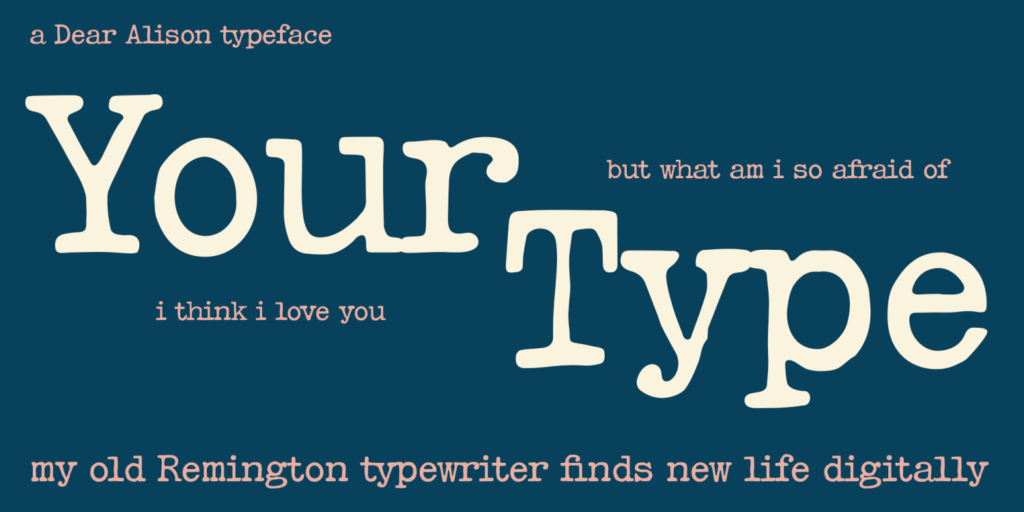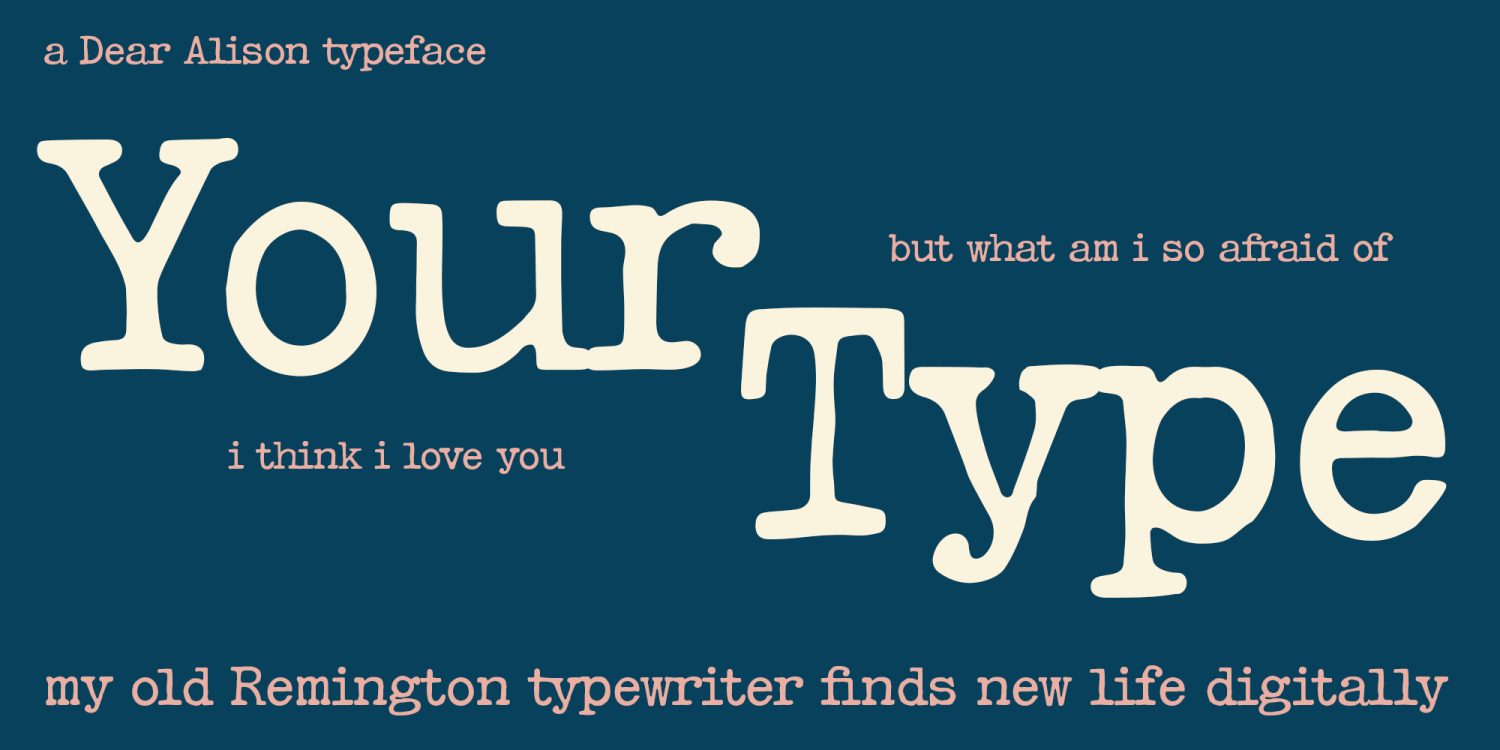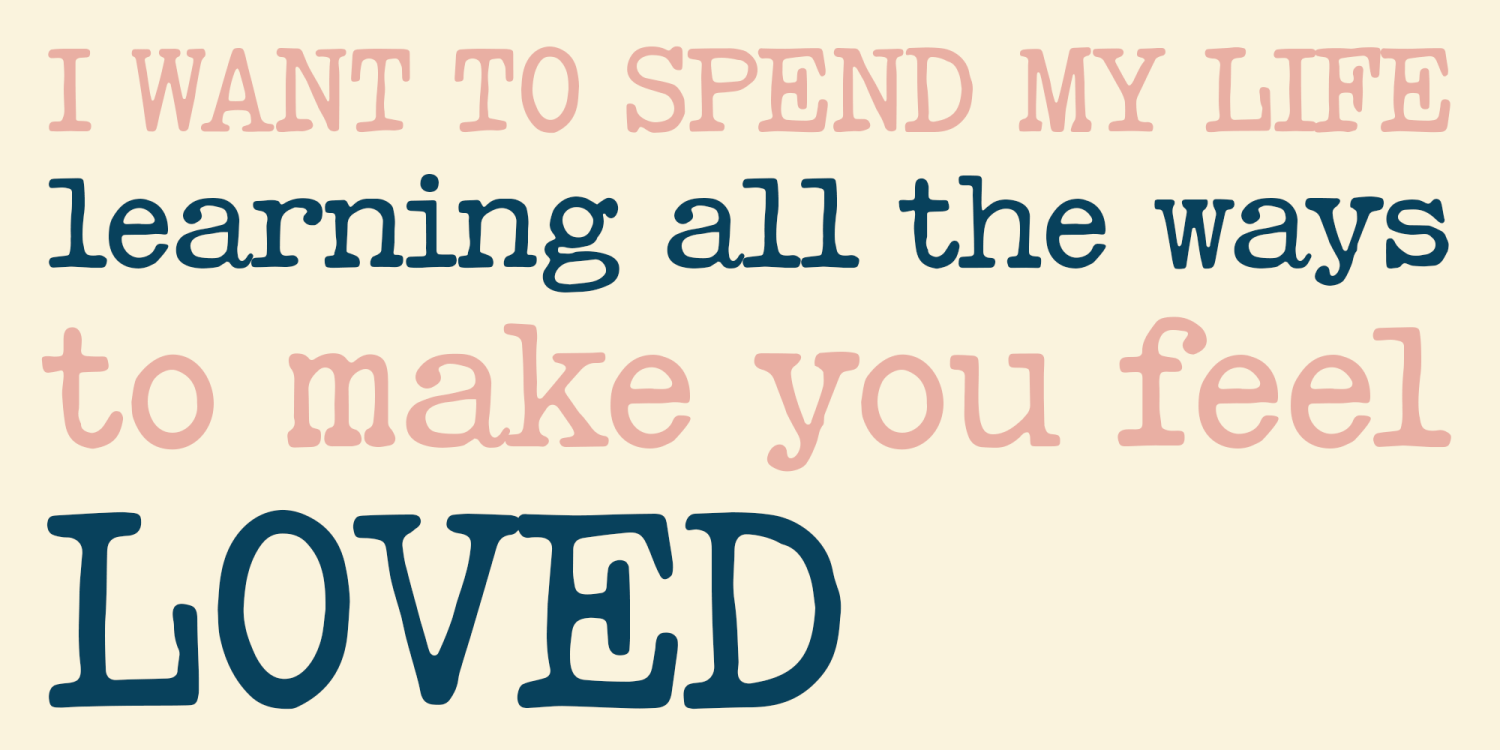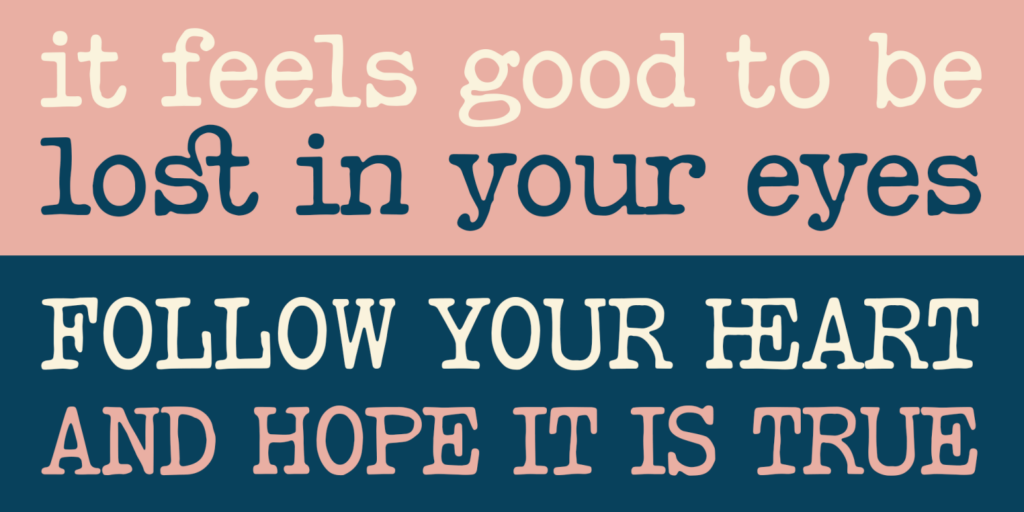
About Your Type
The warmth and tactility of a typewriter is like nothing else. My old Remington typewriter unfortunately saw it’s last days long ago, all the keys inked and caked up, the keys no longer working as they should. I thought it was the end, but I rediscovered…